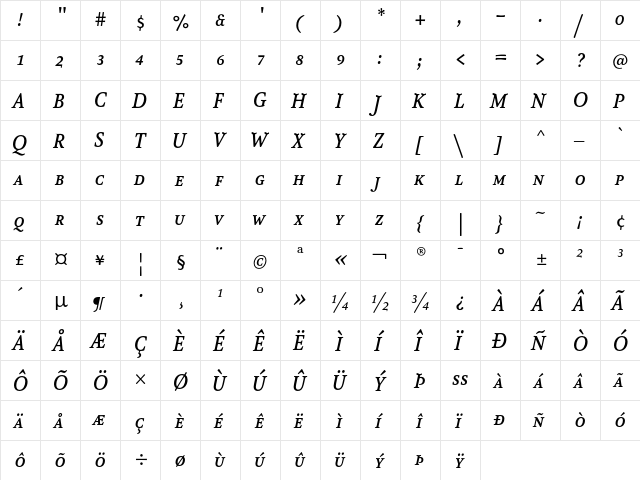
AtmaSerifTF-MediumItalicSC Regular Font Preview
AtmaSerifTF-MediumItalicSC Regular
AtmaSerifTF-MediumItalicSC Regular Font Details
Design Context for AtmaSerifTF-MediumItalicSC Typeface
AtmaSerifTF-MediumItalicSC brings classic typographic sensibility to the table — its serifs and measured letterforms reflect centuries of print heritage. The slanted form adds forward momentum and visual energy.
Pro Tip: Set AtmaSerifTF-MediumItalicSC with slightly loose tracking in headlines to let each letterform's detail read clearly at display sizes.